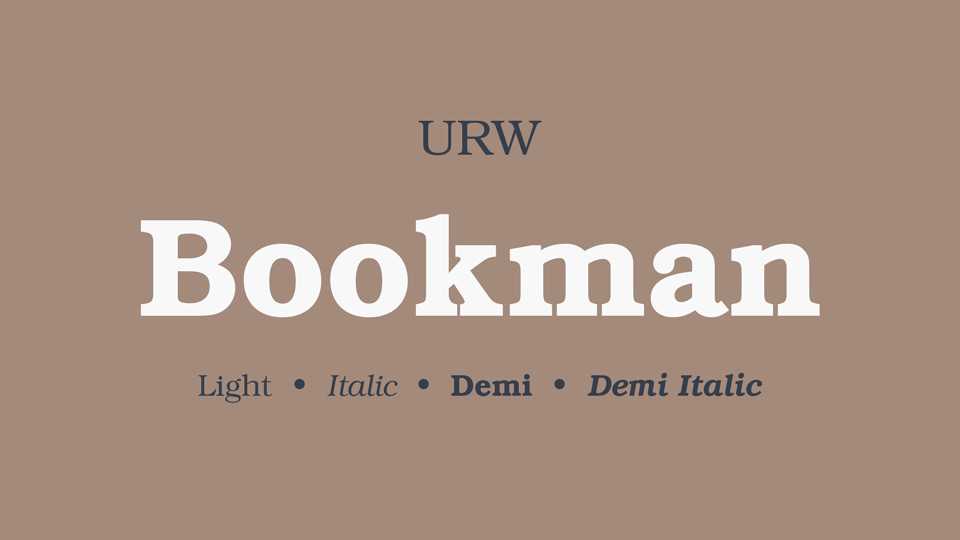
Download URW Bookman typeface, a transitional serif font family in two weights and Italics with a wide, legible design that is slightly bolder than most body text faces.
Designer: URW Type Foundry